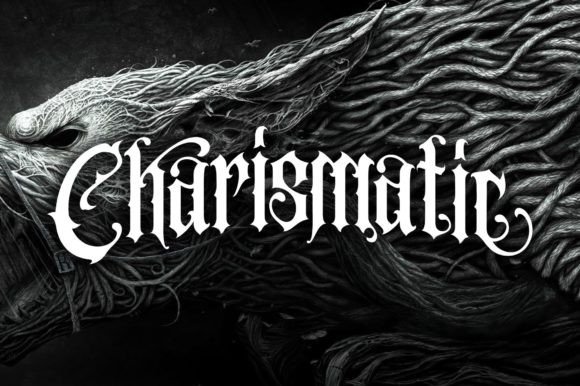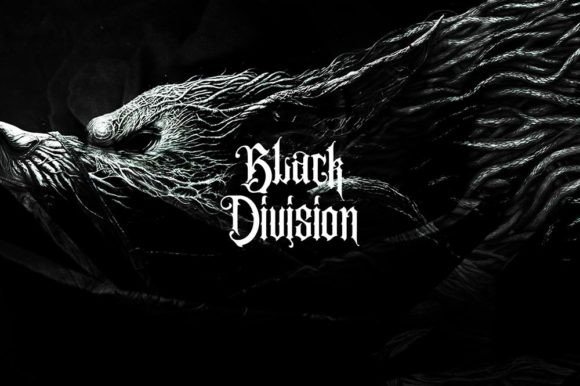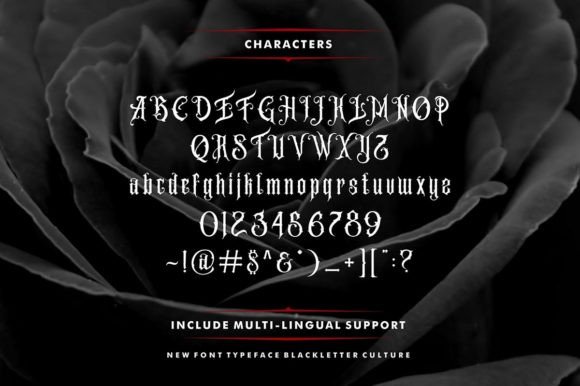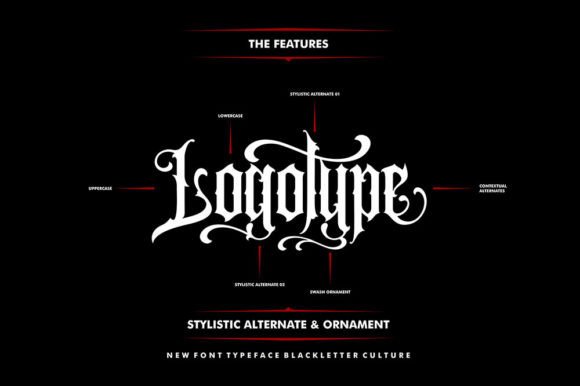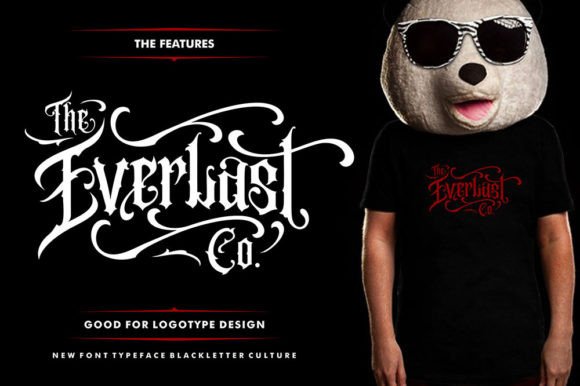
Introducing Amstrong Font: Elevate Your Designs with Elegance and Sophistication
In the world of typography, fonts play a crucial role in conveying the tone and aesthetic of a design. For designers and crafters seeking to add a touch of class and vintage charm to their projects, Amstrong Font is an exceptional choice. This new typeface boasts a classy, elegant, and vintage feel character set that is sure to elevate your designs to new heights.
The Unique Character of Amstrong Font
Amstrong Font is designed to make a statement with its distinctive character set. The font features a beautiful combination of uppercase and lowercase letters, which can be mixed and matched to create visually stunning text. But what truly sets Amstrong apart is its alternative glyphs. By incorporating these glyphs into your design, you can add an extra layer of sophistication and elegance.
To unlock the full potential of Amstrong Font, simply mix the uppercase and lowercase letters with the alternative glyphs. The result is a beautiful, harmonious blend of typography that is sure to leave a lasting impression. Whether you’re working on a branding project, packaging design, or digital content, Amstrong Font is the perfect choice for designers seeking to create something truly special.
PUA Encoding: Effortless Access to Glyphs and Swashes
One of the standout features of Amstrong Font is its PUA (Private Use Area) encoding. This means that designers can access all glyphs and swashes effortlessly, without the need for complex software or technical expertise. With PUA encoding, you can easily navigate the font’s extensive character set and select the perfect glyphs to enhance your design.
The benefits of PUA encoding are numerous. For designers, it means that you can focus on the creative aspects of your project, rather than struggling with technical complexities. For clients, it means that you can deliver high-quality designs that exceed their expectations.
Why Choose Amstrong Font for Your Projects?
So why should you choose Amstrong Font for your next design project? Here are just a few compelling reasons:
- Elegance and sophistication: Amstrong Font boasts a classy, elegant, and vintage feel character set that is sure to elevate your designs.
- Flexibility: With its mix of uppercase and lowercase letters, alternative glyphs, and PUA encoding, Amstrong Font offers unparalleled flexibility for designers.
- Easy to use: The font’s PUA encoding makes it easy to access all glyphs and swashes, ensuring a seamless design experience.
- High-quality results: With Amstrong Font, you can deliver high-quality designs that exceed your clients’ expectations.
Tips for Using Amstrong Font Effectively
To get the most out of Amstrong Font, here are a few tips to keep in mind:
- Experiment with mixing and matching: Don’t be afraid to combine uppercase and lowercase letters with alternative glyphs to create a unique look.
- Pay attention to spacing and kerning: To ensure optimal results, pay close attention to spacing and kerning when using Amstrong Font.
- Use it confidently: With its elegant and sophisticated character set, Amstrong Font is sure to make a statement in your designs.
In conclusion, Amstrong Font is an exceptional choice for designers and crafters seeking to add a touch of elegance and sophistication to their projects. With its classy, elegant, and vintage feel character set, PUA encoding, and flexibility, this font is sure to elevate your designs to new heights. So why wait? Add Amstrong Font to your projects today and experience the transformative power of beautiful typography.